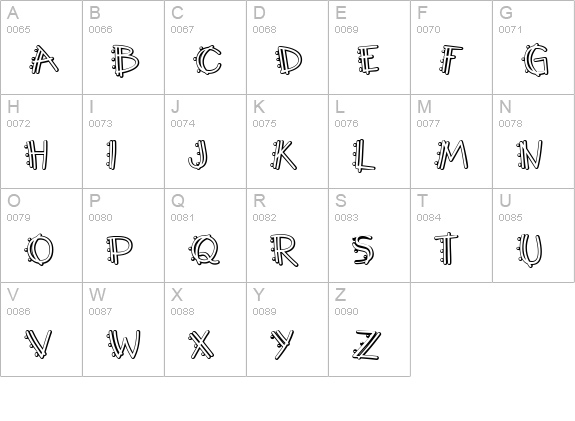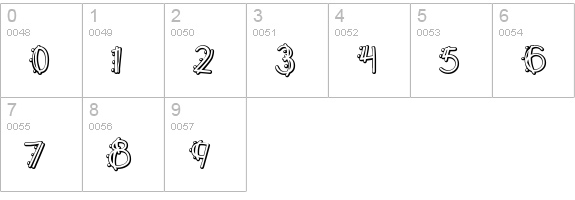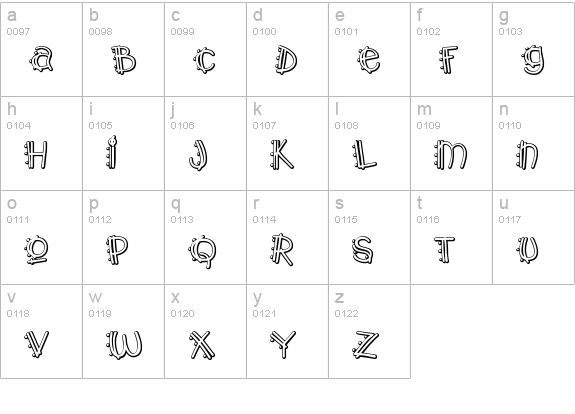
Y2K PopMuzik Outline AOE Font Details
Introducing Y2K PopMuzik Outline AOE font - a vibrant and eye-catching display typeface that embodies the essence of the early 2000s pop culture. With its bold outlines and playful design, this font is perfect for adding a retro touch to your projects. The Y2K PopMuzik Outline AOE font is not only stylish and trendy but also versatile and easy to use. Whether you're creating posters, album covers, social media graphics, or any other design project, this font will make your text stand out and grab attention. What's even better is that the Y2K PopMuzik Outline AOE font is completely free to download at FontsMarket.com. So you can add a touch of nostalgia to your designs without breaking the bank. Don't miss out on this fantastic font - download it today and start creating stunning visuals with a hint of Y2K flair!